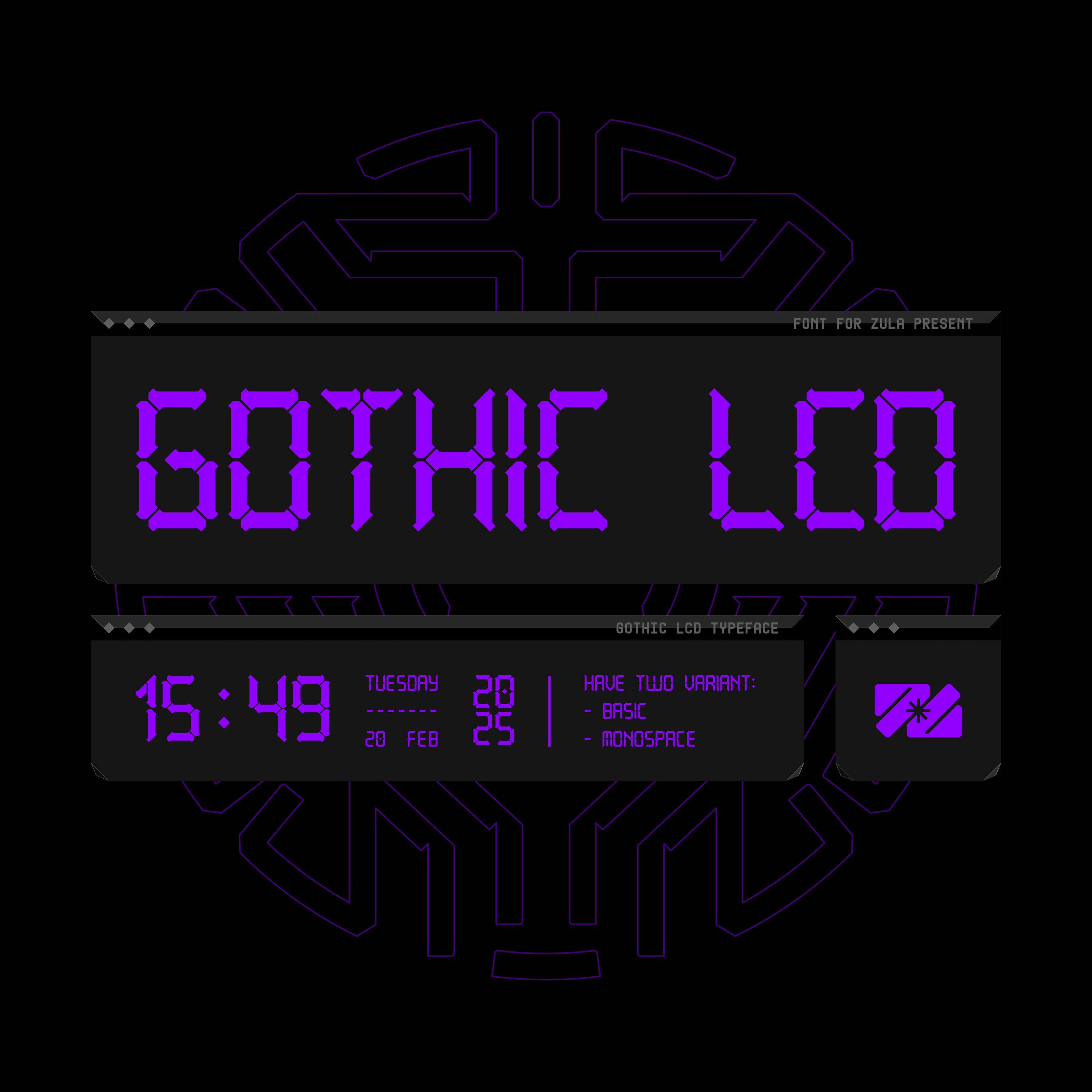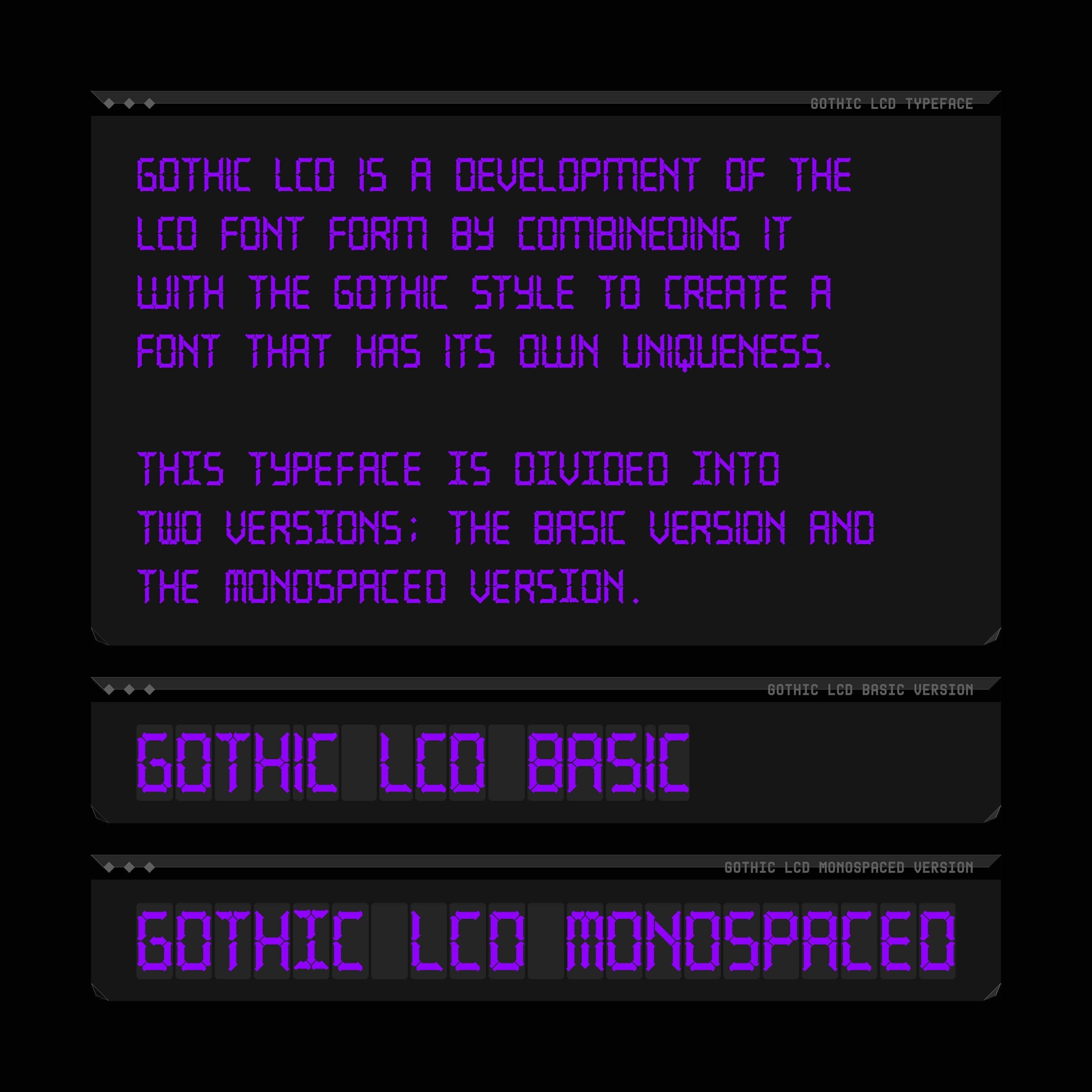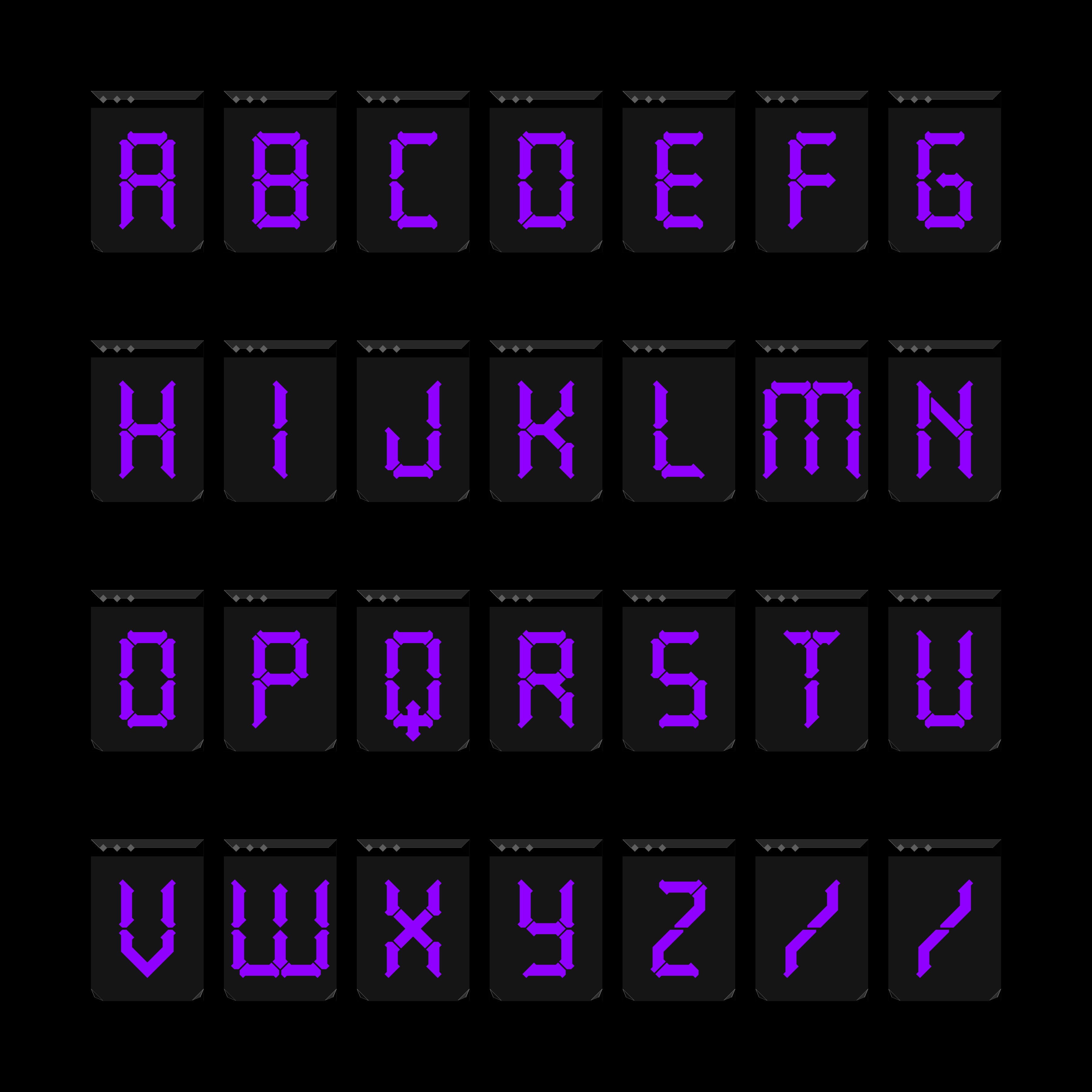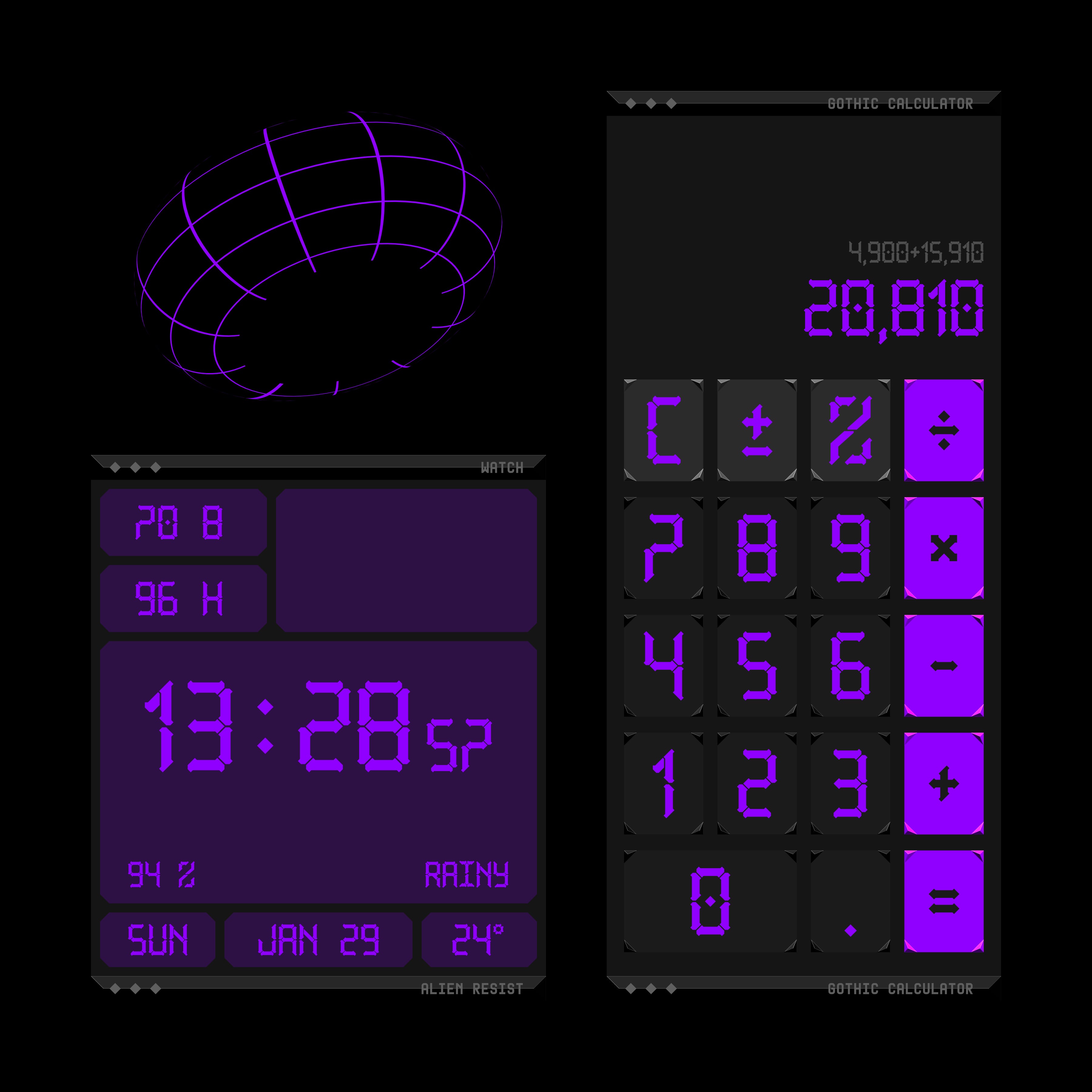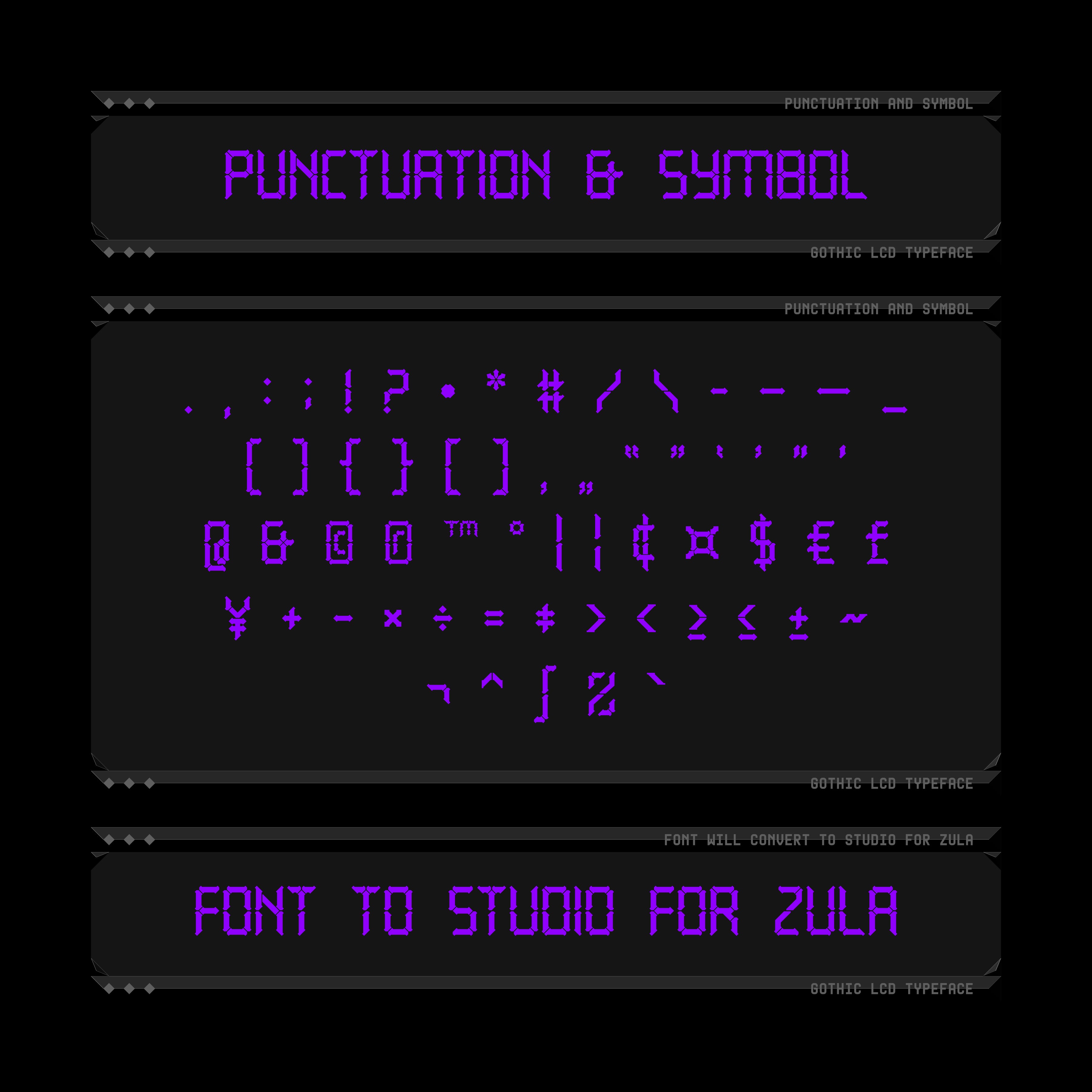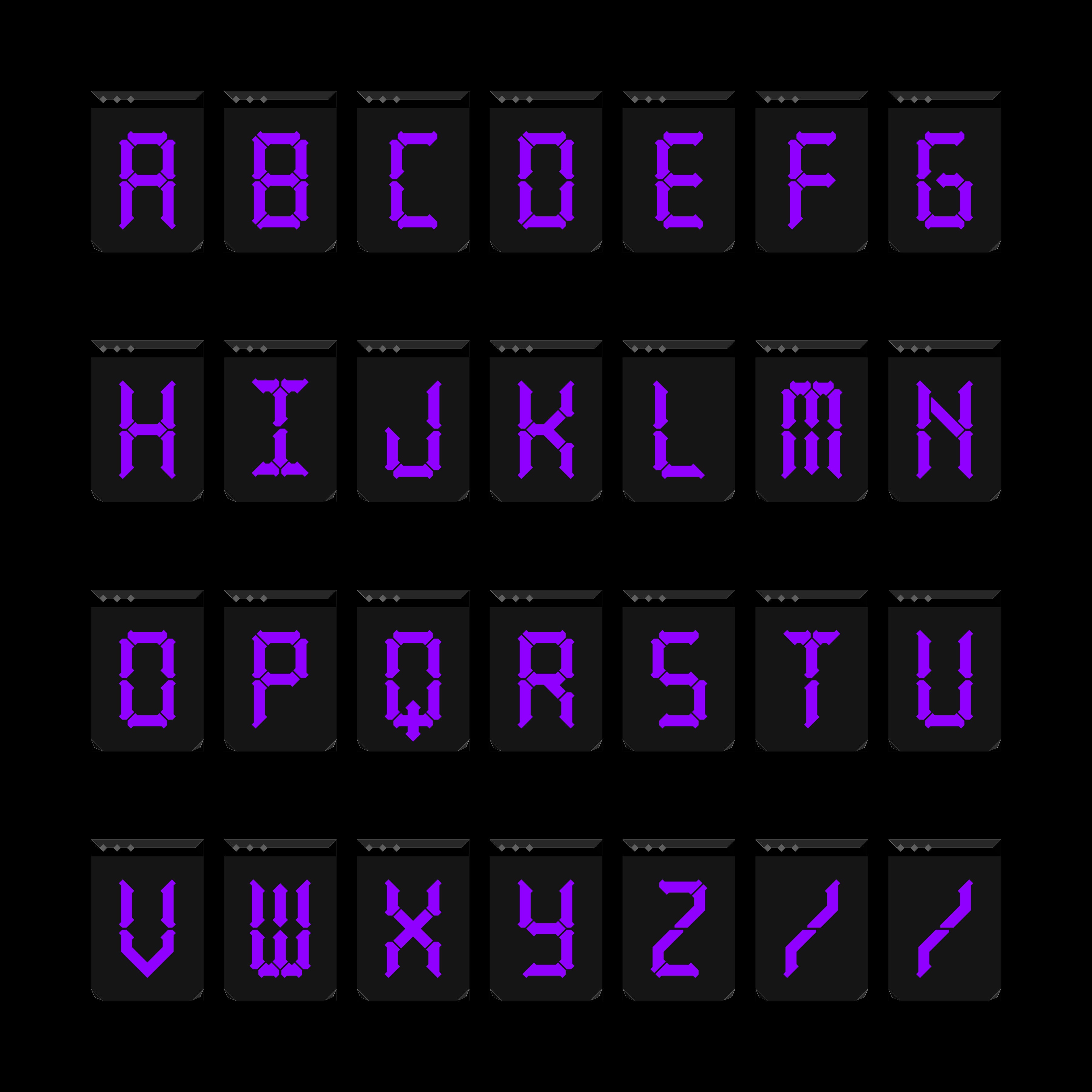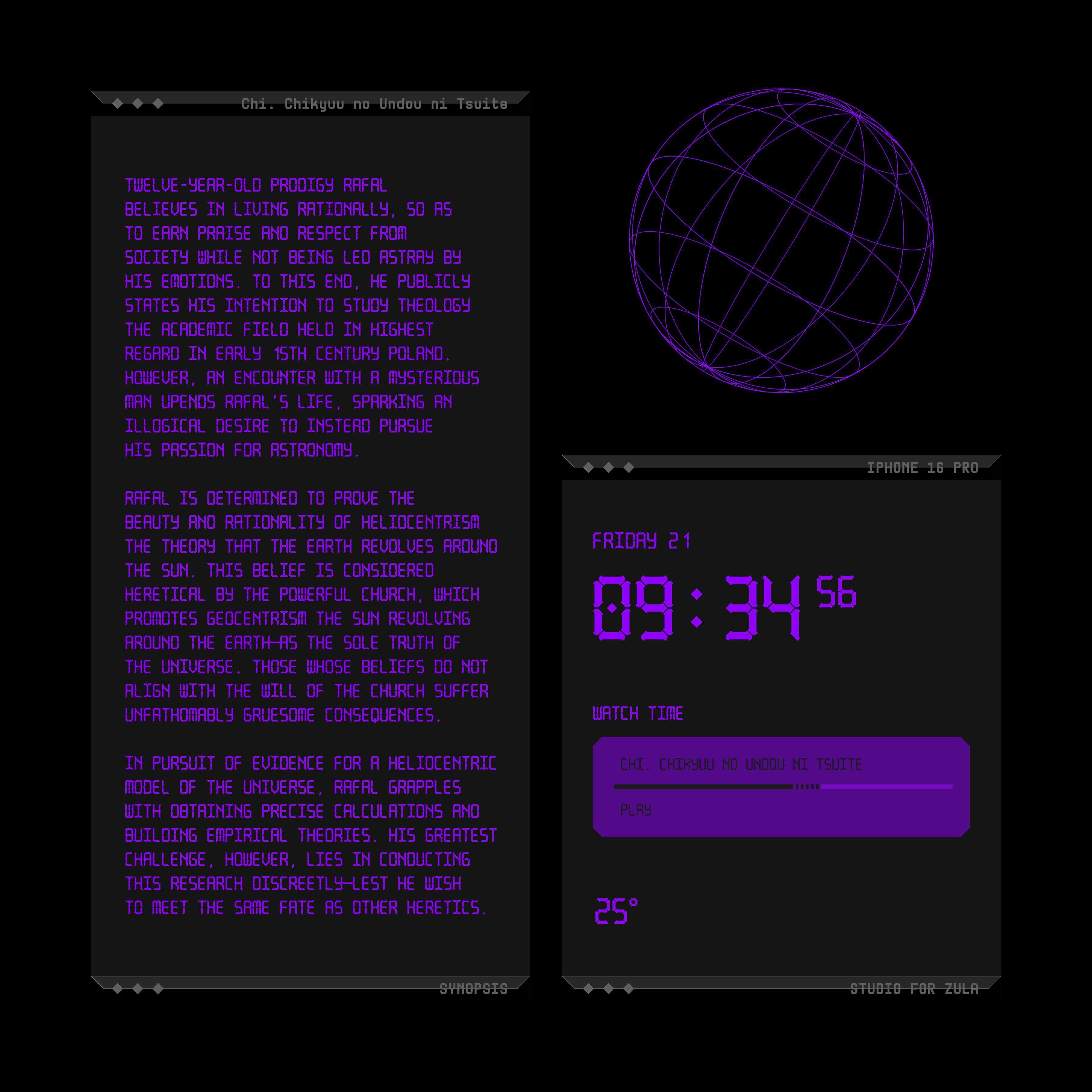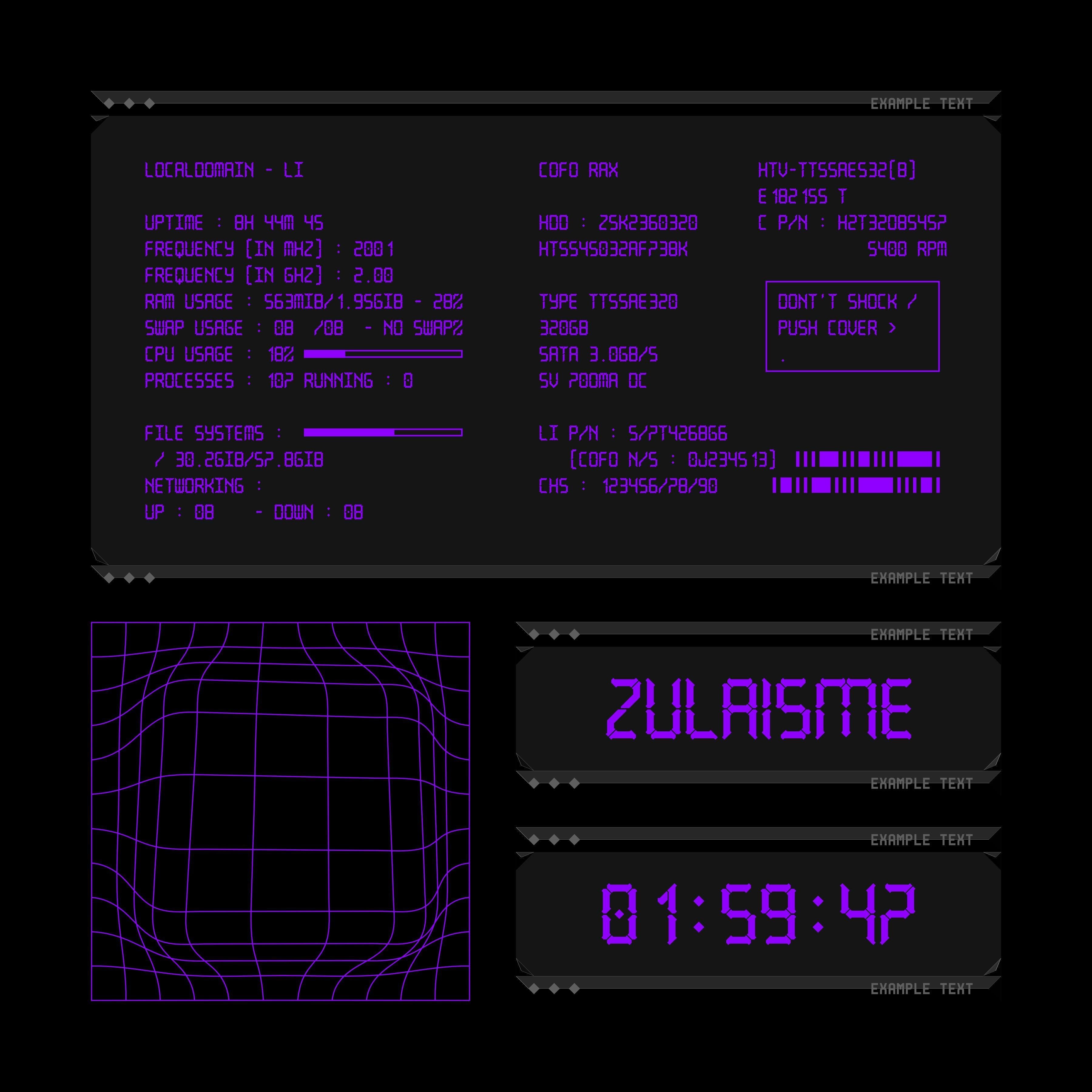
Gothic LCD Typeface
The Gothic LCD Typeface combines the LCD font form with a Gothic style, offering two versions: Basic and Monospaced. It includes 26 letters, 10 numbers, punctuation, and symbols, available in OTF, TTF, and extended WOFF formats.
Ideal for modern graphic design and cyberpunk aesthetics. Perfect for posters, branding, and digital interfaces, ensuring a unique and striking visual impact.